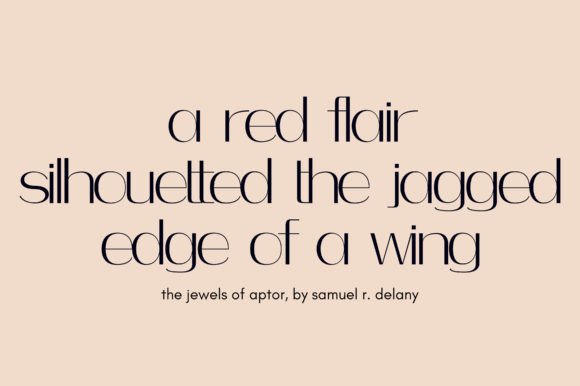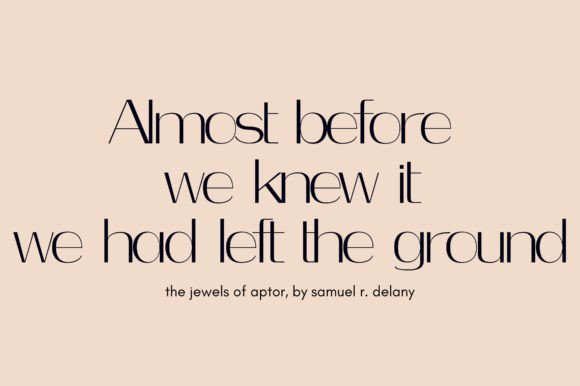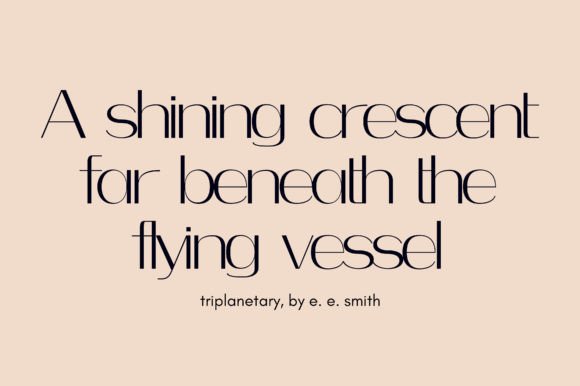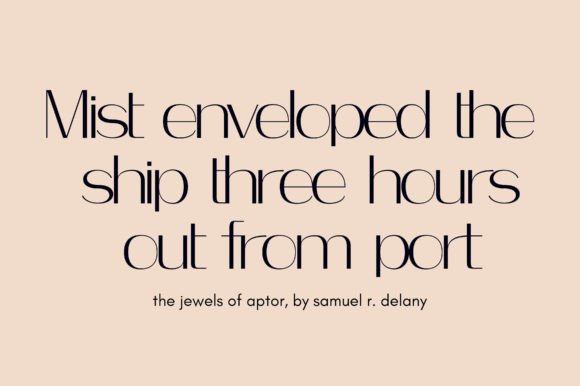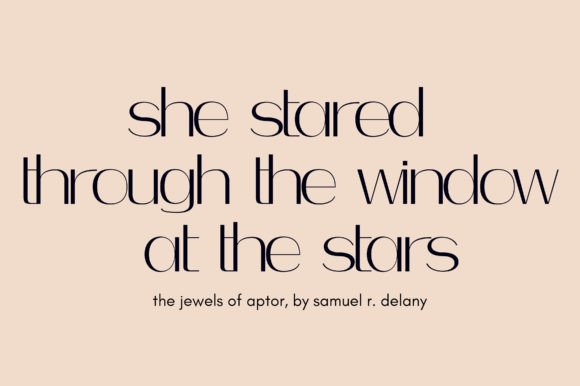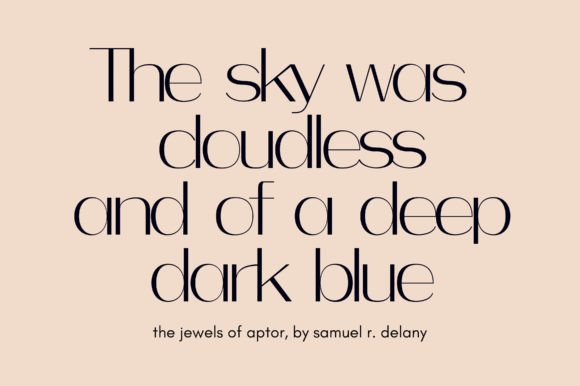
Introduction to Qibea Font
Enter Qibea Font, a sophisticated and elegant sans-serif font that’s perfect for designers who value refinement and sophistication. With its clean lines and airy spacing, Qibea Font creates a sense of lightness and ease that’s perfect for modern designs. Whether you’re working on a branding project, a fashion editorial, or a wedding invitation, Qibea Font will elevate your work to the next level.
Key Features of Qibea Font
- High-quality font design, ideal for creative projects and design resources
- Includes a wide range of characters, including Latin, Cyrillic, and Greek scripts, making it suitable for diverse design projects
- Designed with a modern and sleek aesthetic, perfect for use in logos, branding, and typography-based designs
Honest Review: Qibea Font
As a designer, I’m always on the lookout for high quality design resources to elevate my creative projects. Recently, I stumbled upon the Qibea Font, and I must say it’s been a great addition to my design arsenal.
- Unique and elegant design aesthetic
- Wide range of languages supported, making it a versatile font
- Not suitable for headings or titles, as it can be difficult to read in larger sizes
- Lack of bold and italic versions, limiting its use in certain design scenarios
Overall, I’m impressed with the Qibea Font. Its unique design and high quality make it a great addition to any design project. While it may have some limitations, it’s still a valuable resource for designers. If you’re looking for a free, high-quality font to enhance your creative project, the Qibea Font is definitely worth checking out.
Common Use Cases for Qibea Font
Qibea Font is ideal for creating professional-looking designs, such as presentations, social media graphics, and print materials. It’s also perfect for use in creative projects, such as infographics, brochures, and flyers. With Qibea Font, you can create high-quality designs with a transparent background, making it a valuable design resource for any creative project